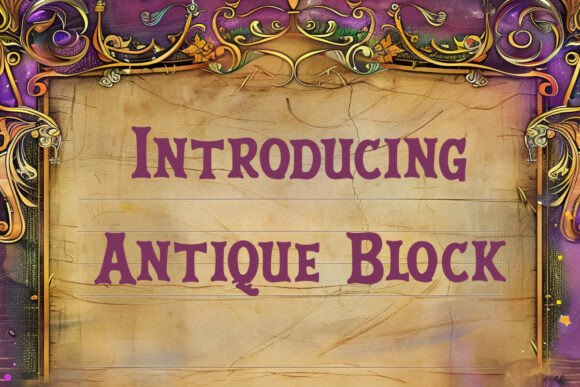
Introducing Antique Block Print: A Timeless Font for Vintage Charm
In the world of design, a font can make all the difference in bringing a project to life. For those seeking a touch of vintage elegance, look no further than Antique Block Print. This multifaceted font is designed to add a distinctive appeal to a wide range of projects, from shirt designs to social media content. With its versatility and classic charm, Antique Block Print is the ultimate font for designers and crafters looking to make their mark.
The Versatility of Antique Block Print
One of the standout features of Antique Block Print is its incredible versatility. This font can be used in a variety of applications, from practical designs like shirt graphics and sticker creations to more artistic endeavors like magazine layouts and greeting cards. Whether you’re working on a branding initiative or a personal project, Antique Block Print is sure to make a lasting impression.
Branding and Marketing
For businesses and entrepreneurs, establishing a strong brand identity is crucial. Antique Block Print can help you achieve this goal with its eye-catching and memorable style. By incorporating this font into your branding materials, such as logos, packaging, and advertising, you can create a cohesive and recognizable visual identity that sets you apart from the competition.
Design and Crafting
For designers and crafters, Antique Block Print offers endless possibilities for creative expression. Use it to add a touch of vintage charm to your Cricut projects, or leverage its standout style for magazine layouts and SVG files. This font is also perfect for creating heartfelt greeting cards, posters, and social media content that stands out from the crowd.
The Benefits of Antique Block Print
So why choose Antique Block Print for your next project? Here are just a few benefits of this incredible font:
- Timeless appeal: Antique Block Print has a classic charm that never goes out of style, making it perfect for projects that require a vintage touch.
- Versatility: This font can be used in a wide range of applications, from practical designs to artistic endeavors.
- Memorability: Antique Block Print is designed to make a lasting impression, making it perfect for branding initiatives and marketing materials.
- Elegance: This font adds a touch of classic elegance to any project, making it perfect for posters, greeting cards, and social media content.
Using Antique Block Print in Your Projects
Ready to experience the vintage allure of Antique Block Print? Here are a few tips for incorporating this font into your next project:
- Pair it with modern elements: Combine Antique Block Print with modern design elements to create a unique and eye-catching contrast.
- Experiment with colors: Try pairing Antique Block Print with different colors and textures to add depth and interest to your design.
- Use it in combination with images: Antique Block Print pairs perfectly with vintage or distressed images, adding to the overall aesthetic.
In conclusion, Antique Block Print is a timeless font that adds a touch of vintage charm to any project. With its versatility, classic elegance, and memorable style, this font is perfect for designers and crafters looking to make their mark. Whether you’re working on a branding initiative, a personal project, or a creative endeavor, Antique Block Print is the ultimate font for adding exquisiteness across various platforms and projects.